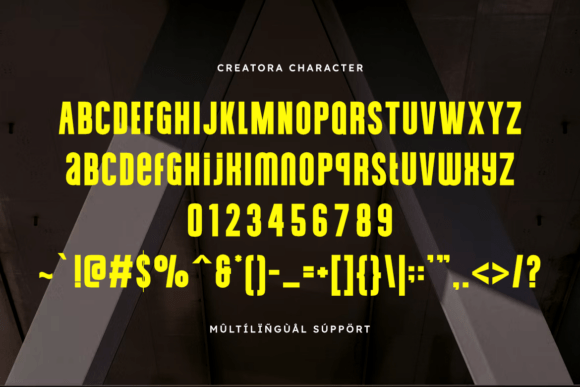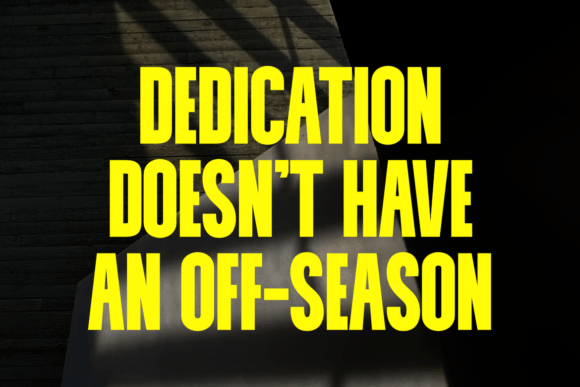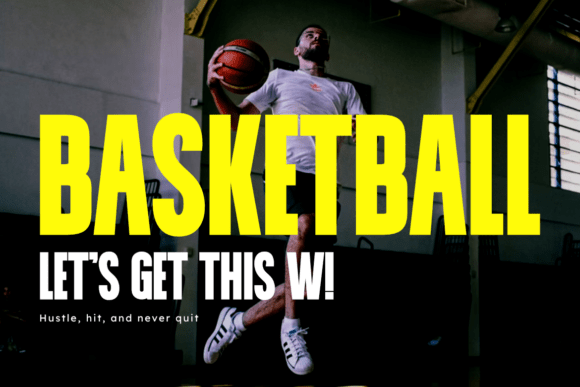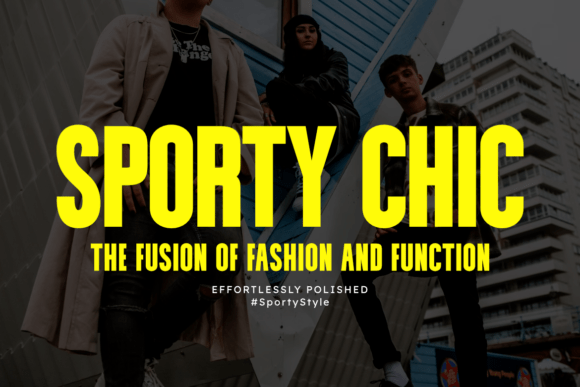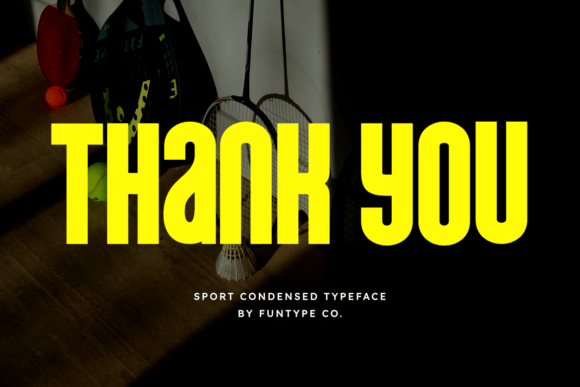
The Ultimate Font for High-Energy Designs: A Deep Dive into Creatora Font
I’ll never forget the time I was working on a project for a local sports apparel brand. My client wanted a bold, eye-catching font that would capture the essence of speed, energy, and competitiveness. I scoured the internet, tried out countless fonts, but nothing seemed to fit the bill. That was until I stumbled upon Creatora Font. ✨
This bold, impactful sport condensed display typeface has been a game-changer for my designs. In this article, I’ll share my honest review, a practical guide on how to use it, and some valuable insights into the world of Creatora Font.
Creatora Font: The Perfect Blend of Style and Functionality
Creatora Font is designed to capture the spirit of speed, energy, and competition. Its tight, tall letterforms and thick strokes give it an assertive, powerful presence, making it perfect for athletic apparel, event posters, gaming titles, and dynamic headlines.
Honest Review: What I Love and What I Don’t
- ✅ Bold and Impactful: Creatora Font is designed to make a statement. Its bold, condensed letterforms are perfect for creating eye-catching headlines and titles.
- ✨ High-Energy Vibes: The font’s tight, tall letterforms and thick strokes evoke a sense of speed, energy, and competitiveness.
- ✅ Versatile: Creatora Font can be used for a wide range of design projects, from athletic apparel to gaming titles.
The Not-So-Good Stuff
- ⚠️ Limited Legibility: Creatora Font can be difficult to read at small sizes or in long blocks of text. It’s best used for headlines and titles.
- 🤔 Limited OpenType Features: While Creatora Font has some great OpenType features, it’s not as extensive as some other fonts on the market.
Creatora Font comes with a range of OpenType features and glyphs that can enhance your designs. Here are a few tips on how to access and use them:
The Backstory Behind Creatora Font
Creatora Font was designed by a team of creatives who wanted to create a font that would capture the essence of speed, energy, and competition. Inspired by the world of sports and e-sports, they crafted a font that would be bold, impactful, and high-energy. The result is a font that’s perfect for designers who need a strong, modern, and dynamic font to stand out in the sports, e-sports, and action-oriented design spaces.
| Font Name | Creatora Font |
| Author | Funtype Co. |
Q: What is Creatora Font?
A: Creatora Font is a bold, impactful sport condensed display typeface designed to capture speed, energy, and competitive spirit.
Q: What is Creatora Font used for?
A: Creatora Font is perfect for athletic apparel, event posters, gaming titles, and dynamic headlines.
Q: Is Creatora Font easy to read?
A: Creatora Font can be difficult to read at small sizes or in long blocks of text. It’s best used for headlines and titles.